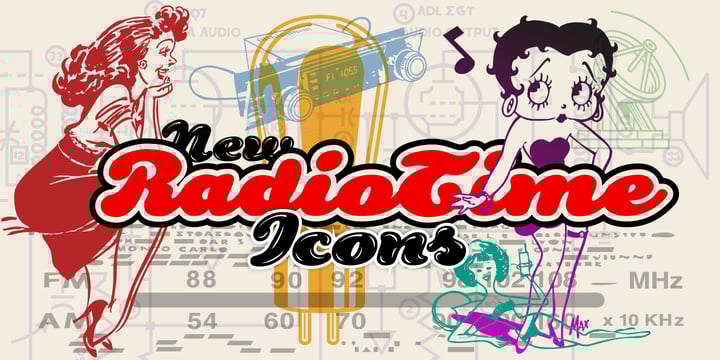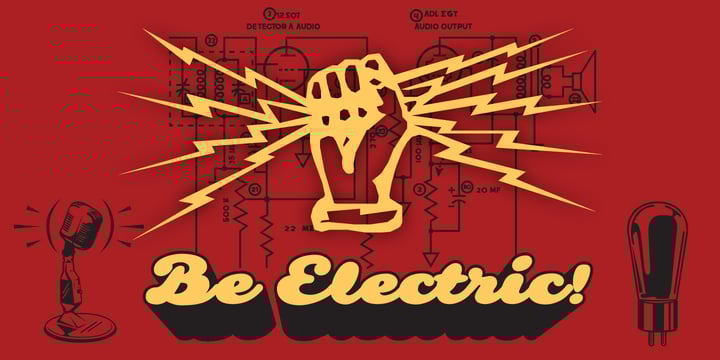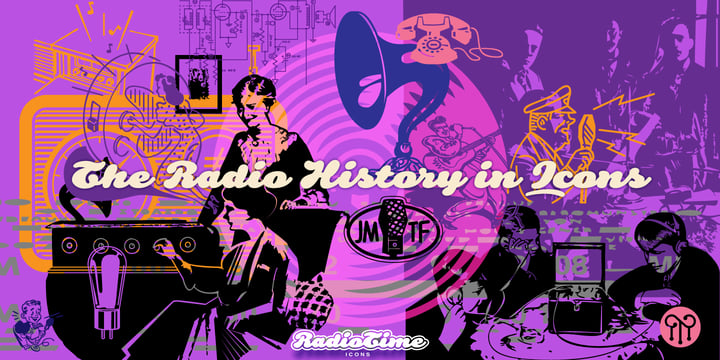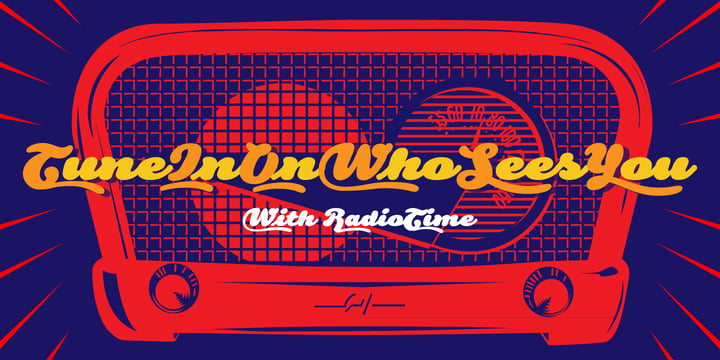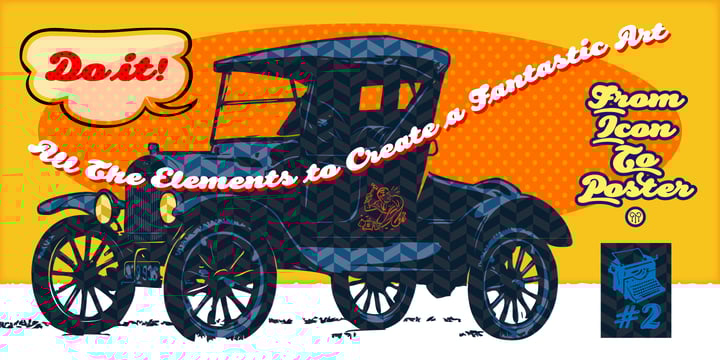
RadioTime Font Family was designed by John Moore and published by John Moore Type Foundry. RadioTime contains 4 styles and family package options.
About RadioTime Font Family
A funny look with the spirit of the radio’s golden age, RadioTime is a typeface based on the handwritten alphabets of the ’30, ’40 and ’50. RadioTime comes with two styles: Regular and Tooled, in standards connected letters to imitated continuos handwritting and it’s provided with specials characters like swash, terminals, lower case numbers as well as an unlinked set of characters. RadioTime comes also with a wide kind of icons and ornaments. All this features provides the Word with the fun spirit and speed of those times of bustle. Radio Time was a winner in "Tipos Latinos 2010", The Fourth Biennial of Latin-American Typography. RadioTime Icons offers a thorough and well drawn vintage collection of 63 icons that tells the story of the glory days of radio, charts, dials, automobiles, airplanes and people who set the mood of those days.
RadioTime